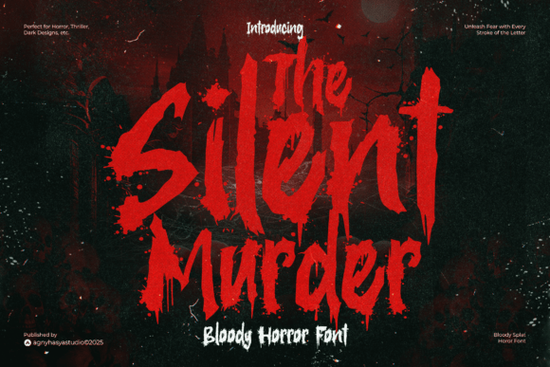
If you're working on a horror-themed design whether it's for a Halloween event, a thriller book cover, or a slasher-inspired merch line you know the right font can make or break the mood. The Silent Murder Font delivers exactly that chilling atmosphere with its blood-splattered strokes and dripping letterforms that feel like they’ve just stepped out of a midnight crime scene. It’s not just decorative; it’s atmospheric, turning even a simple title into something that lingers in the viewer’s mind.
Designed with texture and tension in every curve, this font works especially well when you want your text to feel visceral. Think haunted house flyers, true crime podcast thumbnails, or limited-edition apparel for horror fans. The uneven drips and rough edges give it an organic, hand-crafted dread far from the sterile look of standard display fonts.
When should you use The Silent Murder Font?
This font shines in short-form applications where impact matters more than readability over long passages. Ideal uses include:
- Event posters for Halloween parties or horror film screenings
- Book and album covers in the thriller, mystery, or supernatural genres
- Merchandise designs like T-shirts, mugs, or stickers targeting horror enthusiasts
- Social media graphics for seasonal campaigns or suspenseful storytelling
Because of its intense visual weight, it’s best paired with clean, minimal supporting text like a neutral sans-serif for body copy to avoid overwhelming your audience.
How does it compare to other horror or display fonts?
Not all spooky fonts are created equal. Some lean cartoonish (great for family-friendly Halloween), while others go full psychological horror. The Silent Murder sits firmly in the latter camp. If you’re looking for something with a grittier, more cinematic edge, it stands apart from playful alternatives like the Tasty Parade Duo, which offers quirky contrast rather than dread.
For projects needing urban grit instead of blood-soaked terror, the City Spray Font brings street-art energy without the horror theme. And if you ever need to pivot from slasher vibes to something mythic or bold say, for a Viking-themed product line the Viking Font offers rugged strength without the crimson drips.
Even within horror-adjacent styles, variety helps. The Bright Zombie Font mixes decay with retro flair, useful for zombie comedies or vintage horror homages. Meanwhile, Super Touchdown proves that high-energy display fonts can work outside horror entirely perfect for sports or gaming themes when you need loud, proud typography.
Practical tips for using The Silent Murder effectively
Because of its detailed textures, this font performs best at larger sizes. Avoid using it below 24pt in print or digital formats it loses its dramatic detail when scaled down too far. Also, consider your background: dark or grungy backdrops enhance its effect, while bright white can mute the intended unease.
If you’re designing for print-on-demand products (like hoodies or posters), test how the fine drip details translate on different materials. Some fabrics or paper types may soften the sharpness of the splatters, so always request a sample proof if possible.
And remember: less is more. One headline in The Silent Murder often carries enough visual weight for an entire layout. Overusing it can dilute its impact and reduce legibility.
Before you finalize your design, check this quick list:
- ✅ Is the font size large enough to show drip details clearly?
- ✅ Does the background color enhance (not fight) the bloody texture?
- ✅ Have you paired it with a clean, readable secondary font?
- ✅ Are you using it sparingly for headlines or logos, not paragraphs?
With thoughtful application, The Silent Murder Font becomes more than just type it becomes part of the story you’re telling.